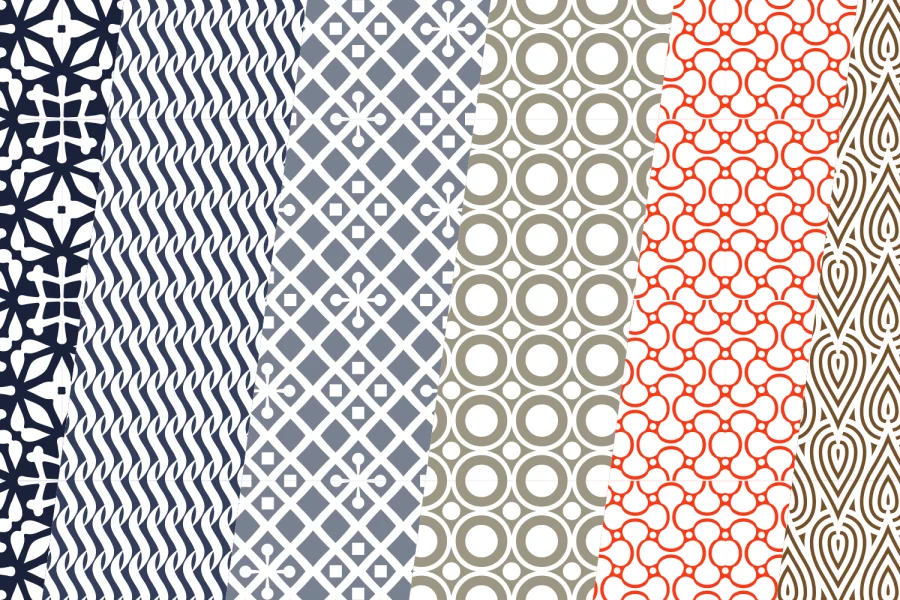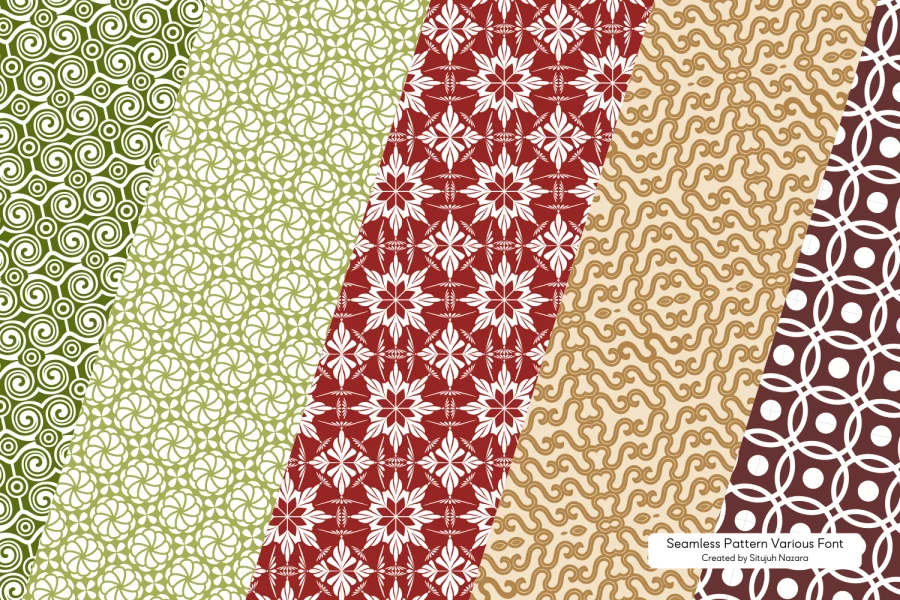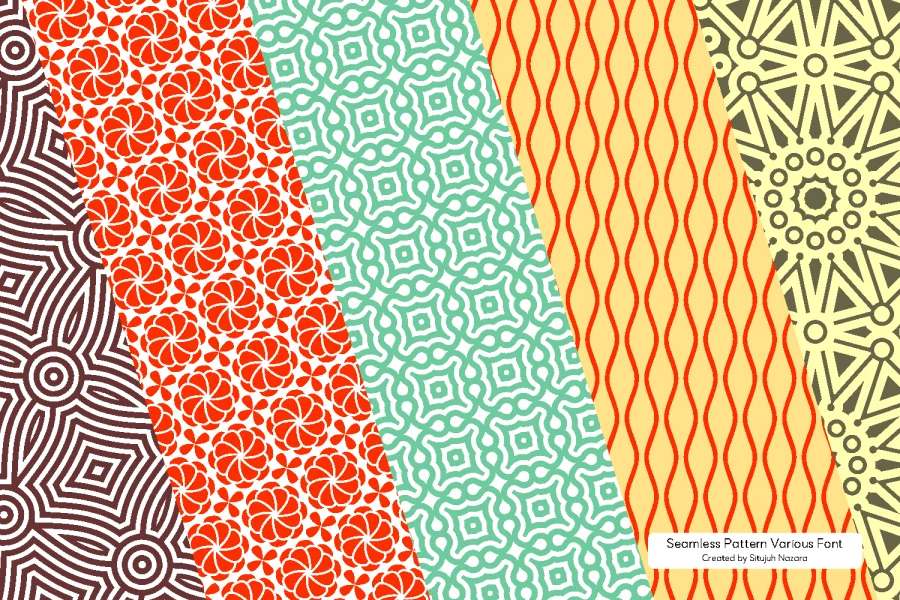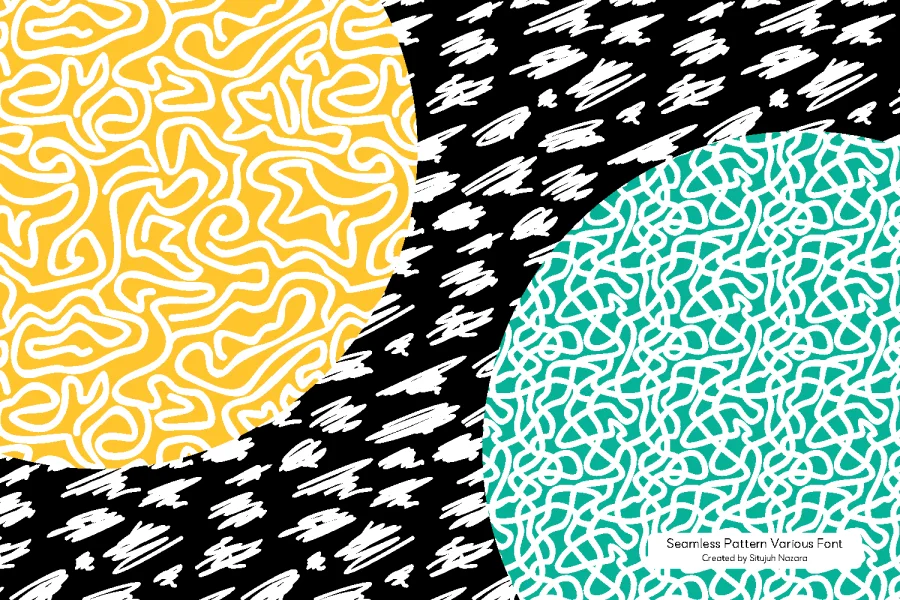
This stunning dingbat font contains 62 unique seamless patterns. Each character/letter 0-9, A-Z, and a-z can be repeated over and over again and are conveniently wrapped up in one stunning seamless patterns. You can easily color the seamless patterns by just changing the color of the font as you would normally do. Convert it into a vector, change and add colors you like and feel free to customize to be used in your background design, textile, and any product that you thinks suitable.